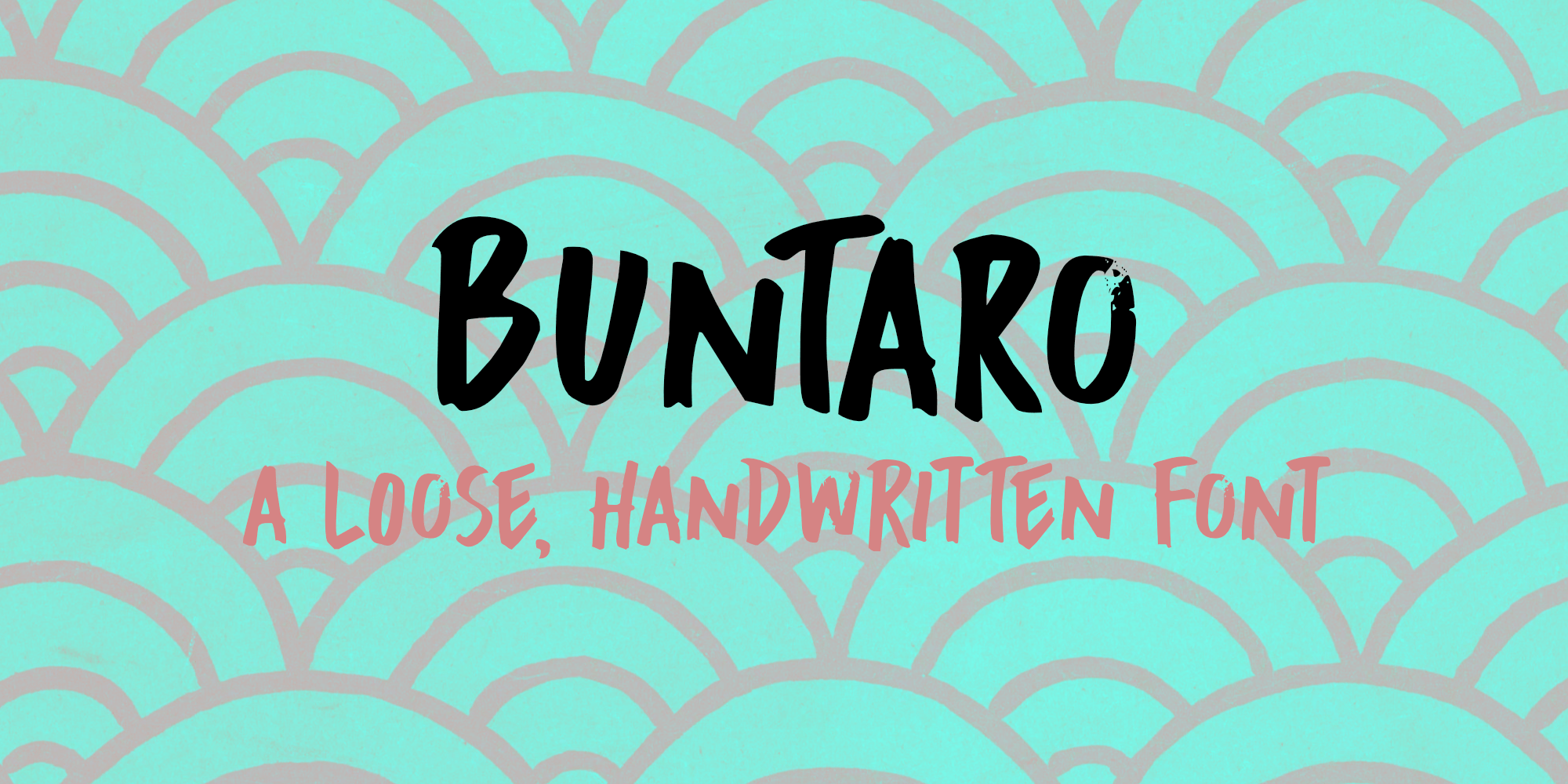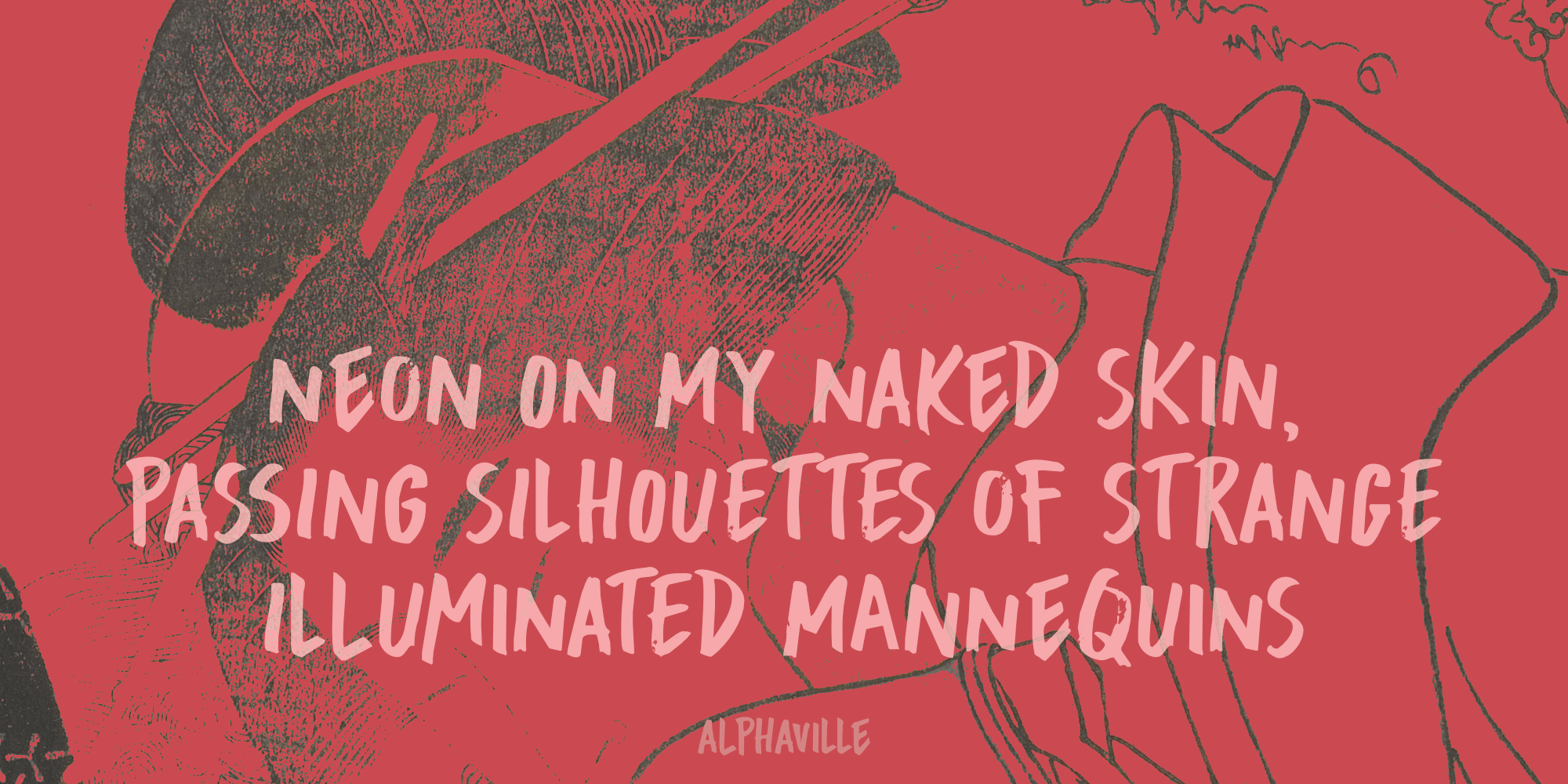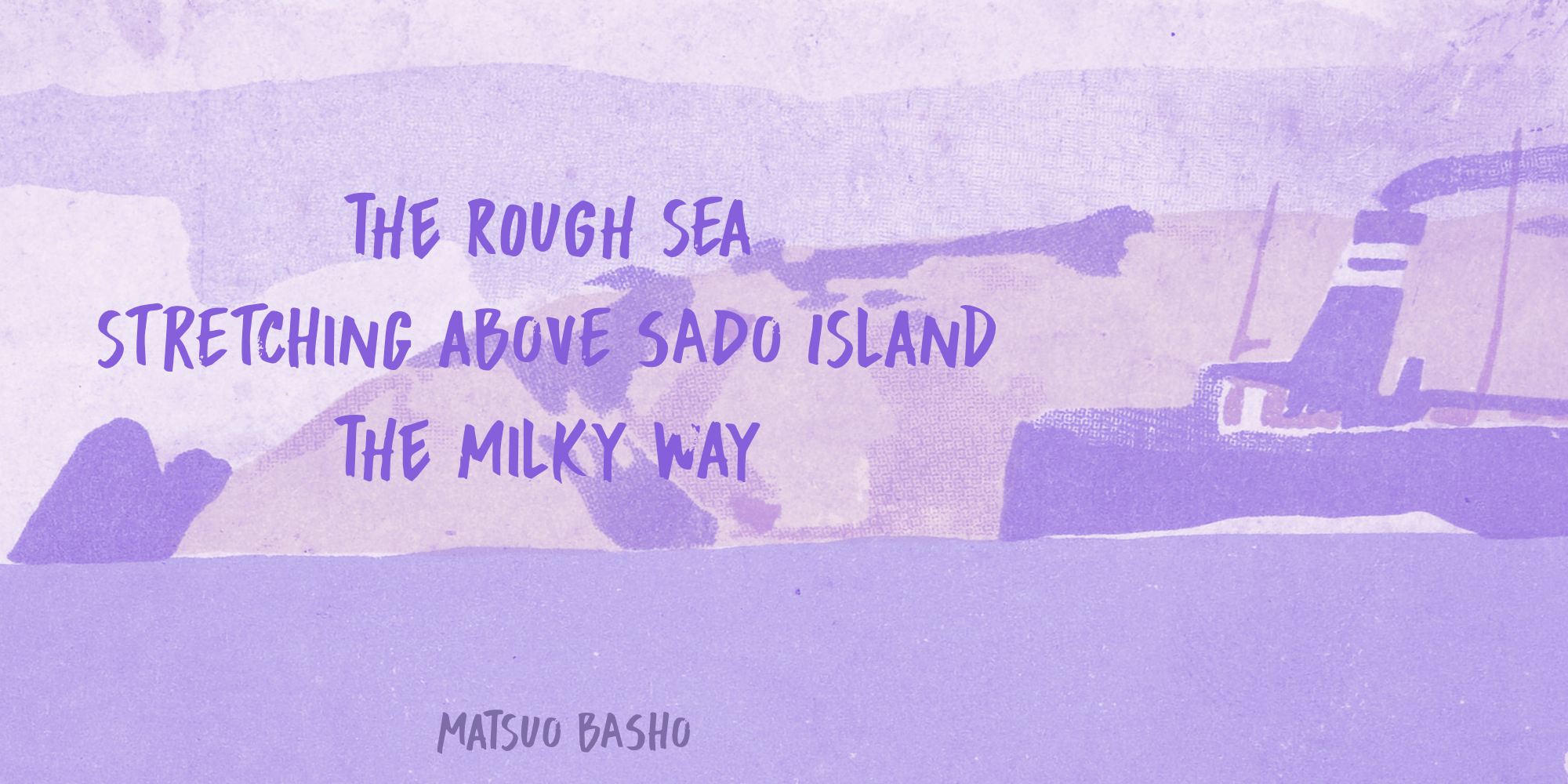
Buntaro
I am reading a great book by David Mitchell, called Number 9 Dream. One of the characters is called Buntaro, so I decided to call my new inky font after him. Like the book, Buntaro is quite unusual: it has no real baseline, comes with some strange characters, feels familiar, but surprises you nonetheless. It was made with a broken bamboo satay-skewer, Chinese ink and a lot of patience. Buntaro comes with a wealth of diacritics.